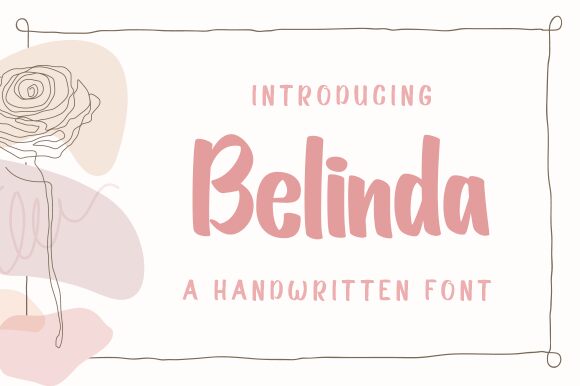
Belinda
Introducing Belinda, a bold and condensed brush font designed by Aldi Raya Pradipta. Perfect for adding a unique touch to any project, from logos to greeting cards and more! With its classic brush style, Belinda is sure to make your work stand out.